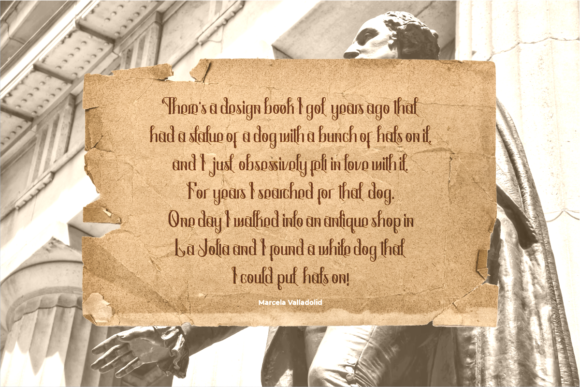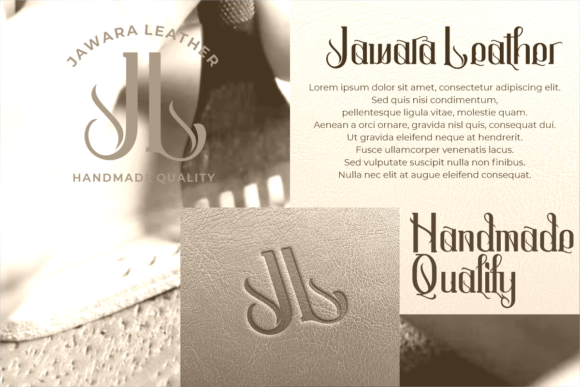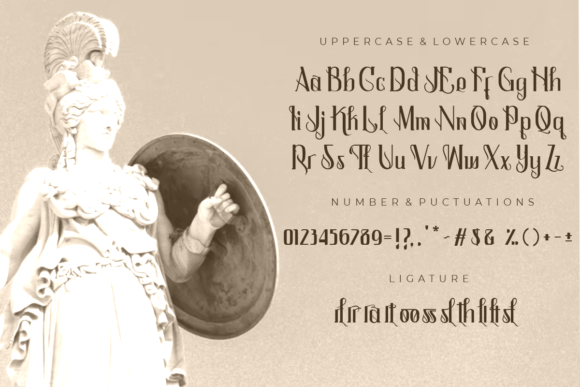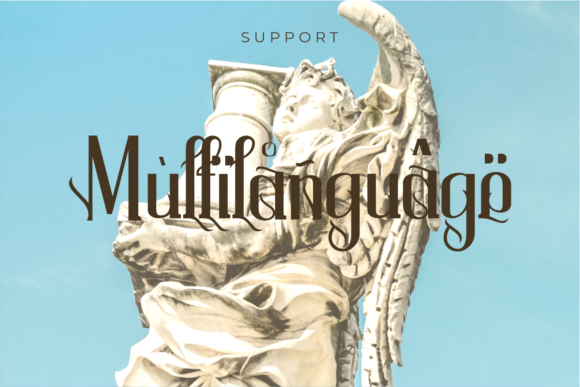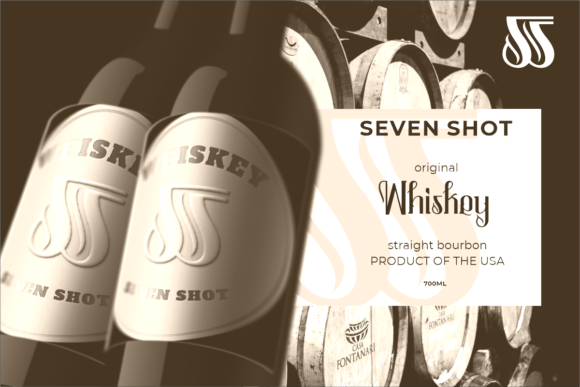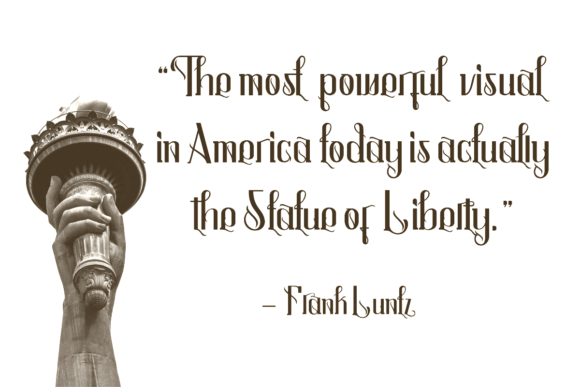
Introduction to Qramesy Font
Qramesy is a stunning blackletter font made in retro and vintage style.
With its bold shape and combined with creative dรฉcor, this font looks beautiful Qramesy is perfect for branding projects, logos, wedding designs, social media posts, advertisements, product packaging, product designs, labels, photography, watermarks, invitations, stationery, and any project that requires a decorative blackletter font.